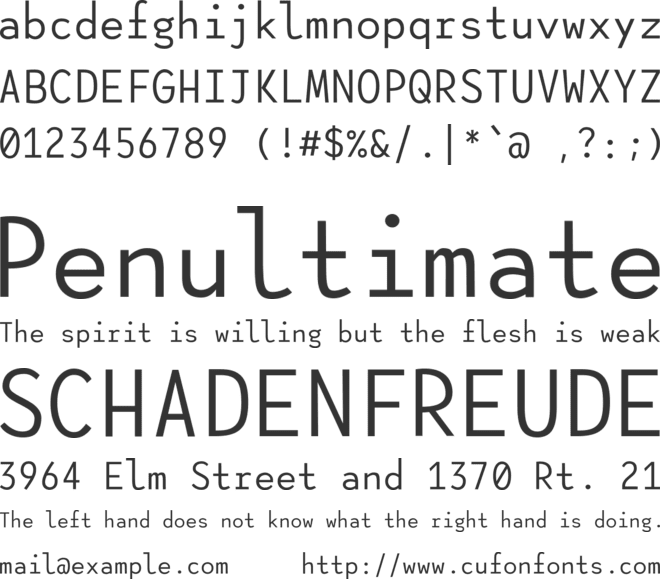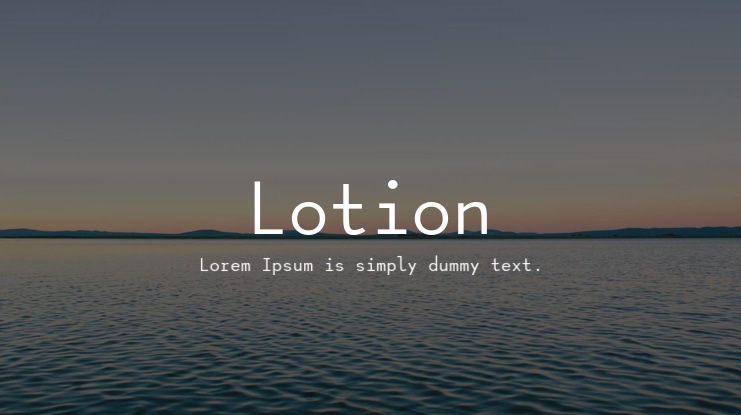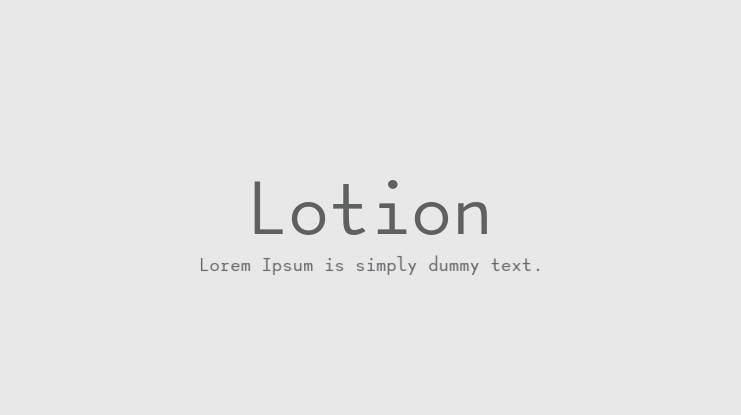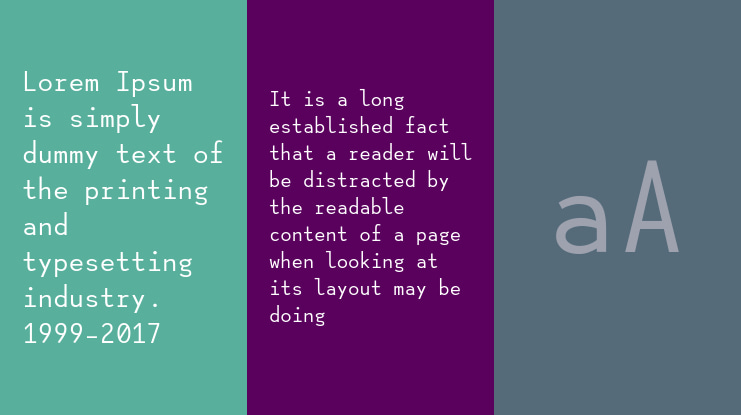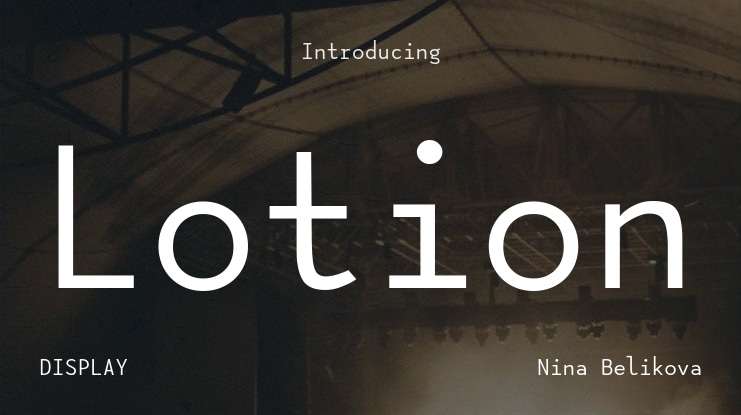
Lotion Font Family
Nina Belikova
Lotion is a modern and stylish font designed specifically for coding. It comes in Regular, SemiBold, Bold, and Black weights, with both Roman and Italics styles. The font is now also available as a variable font, making it even more versatile. Lotion supports most Western European languages and will soon include support for Greek and Russian as well.